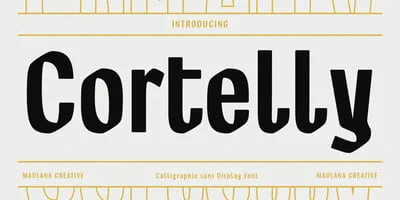
MC Cortelly Font
MC Cortelly Font is perfect for hip-hop album covers, music event posters, urban fashion branding, streetwear graphics, rap battle promotions, nightclub flyers, graffiti-inspired designs, youth culture campaigns, street art exhibitions, and contemporary music marketing. This dynamic typeface captures the raw energy and authentic spirit of urban music culture and street-level creativity.
What makes MC Cortelly Font exciting is its powerful embodiment of hip-hop culture that pulses with the rhythm and attitude of urban music scenes. The font features bold, expressive letterforms with dynamic angles and street-smart character variations that echo the improvisation and creativity found in rap music and street art. Its authentic design elements capture the essence of underground culture while maintaining professional readability, making it perfect for brands seeking to connect with youth demographics and urban communities through genuine cultural expression.
The MC Cortelly Font family includes multiple street-inspired variations such as Regular, Bold, Condensed, and Graffiti styles, along with complementary Outline and Shadow versions. Each weight maintains the font's distinctive urban character while providing comprehensive design flexibility for music industry branding and street culture marketing applications.
Whether you're creating music industry identities, designing urban event promotions, or developing street culture marketing materials, MC Cortelly Font provides the authentic urban typography needed for compelling street-level communication. This font seamlessly combines cultural authenticity with commercial viability, making it an exceptional choice for projects requiring both street credibility and professional presentation. Its carefully crafted letterforms ensure outstanding impact across concert posters, album artwork, and digital platforms where urban culture meets mainstream media in powerful visual storytelling.